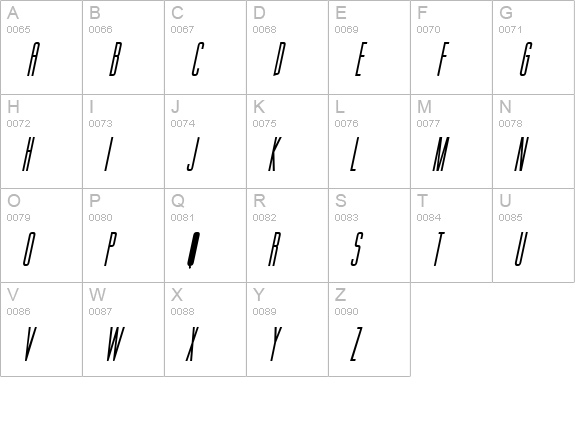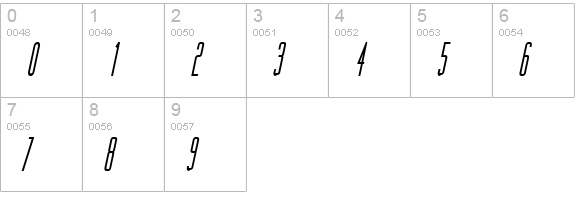
Gorgio Condensed BoldItalic Font Details
Gorgio Condensed BoldItalic is a distinctive, condensed-width variant in the Gorgio typeface family \xE2\x80\x94 well suited to design and typography projects.
Gorgio Condensed BoldItalic font exudes a sense of modern sophistication and bold elegance. Its sleek and condensed style, combined with a touch of italic flair, makes it ideal for adding a touch of luxury to any design project. The sharp angles and strong curves of this typeface create a visually striking impact, perfect for headlines, titles, and branding materials. And the best part? Gorgio Condensed BoldItalic font is available for free download at FontsMarket.com. Whether you're working on a website, print materials, or any other creative endeavor, this versatile font will elevate your design with its unique character and style. Download it today and elevate your projects with the premium look of Gorgio Condensed BoldItalic font.